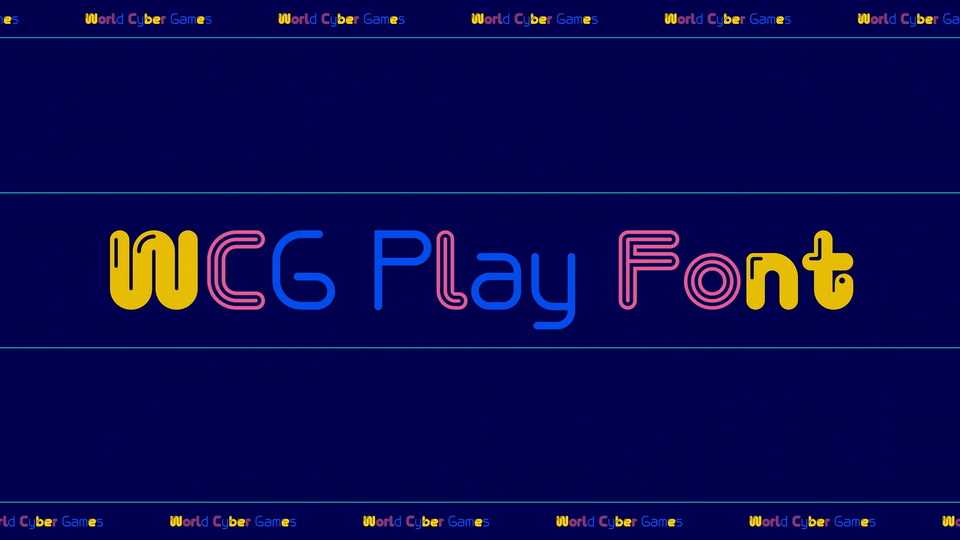
Download WCG Play typeface, a fun and friendly font family in 7 styles to add a pinch of excitement and personality for every esports fans’ digital life.
Designer: DDUNGSANG CORP